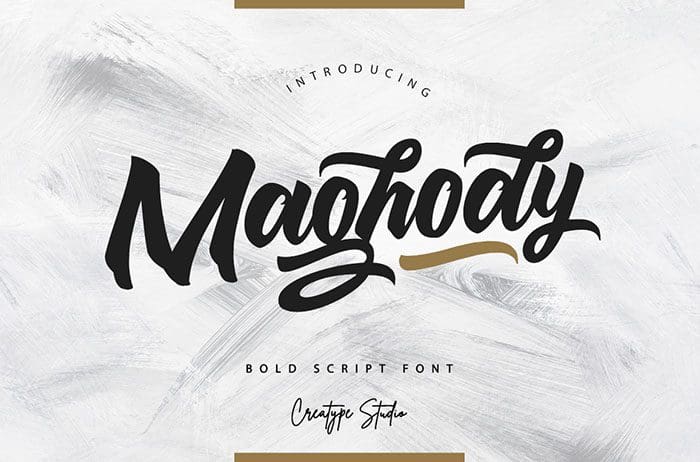
Maghody Script Font
Maghody Script Font is a bold and strong natural movement, this font is great for your various amazing project. Thanks to Creatype Studio for sharing this font! Take a look at this portfolio for more of his stunning fonts.